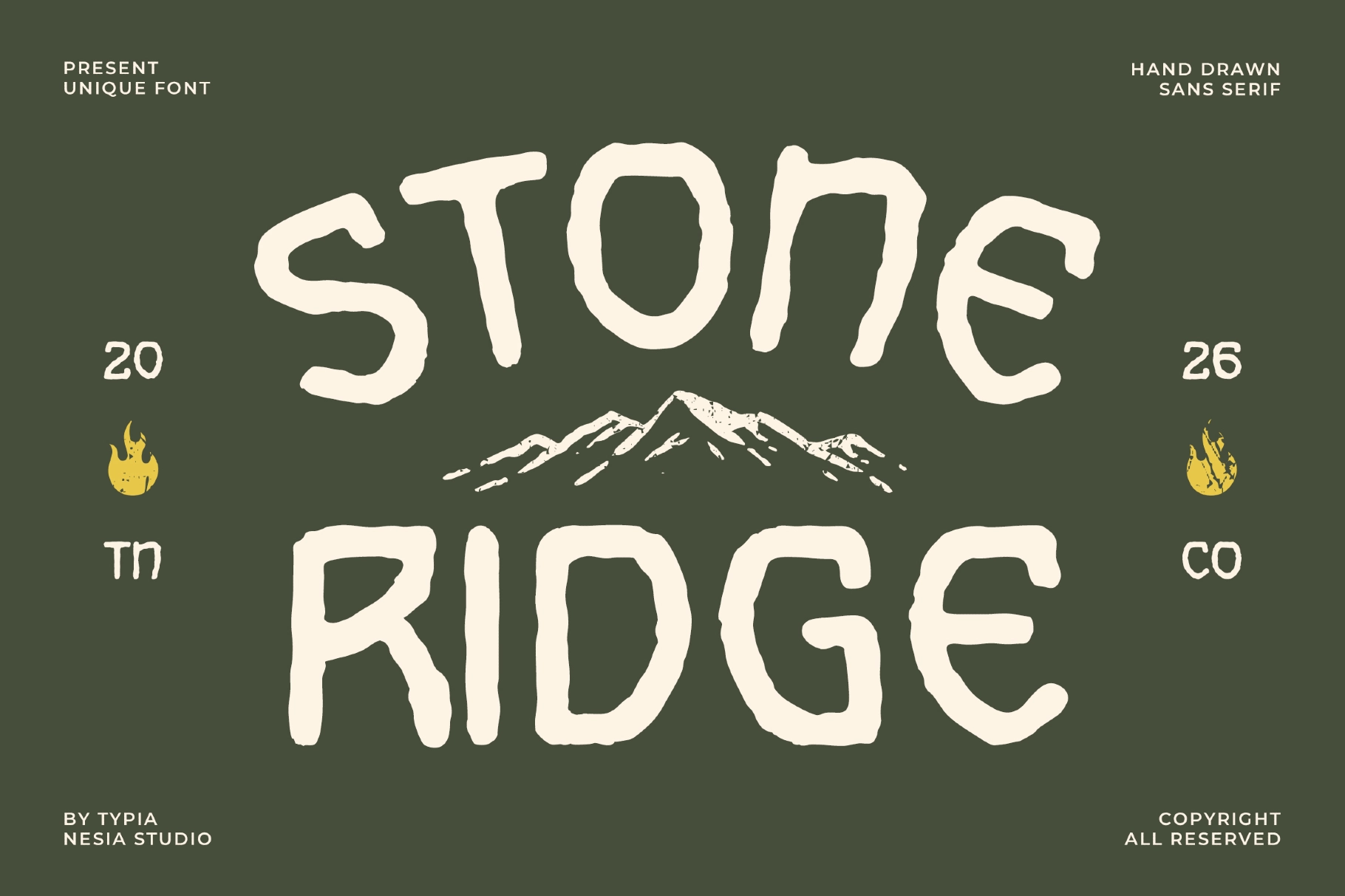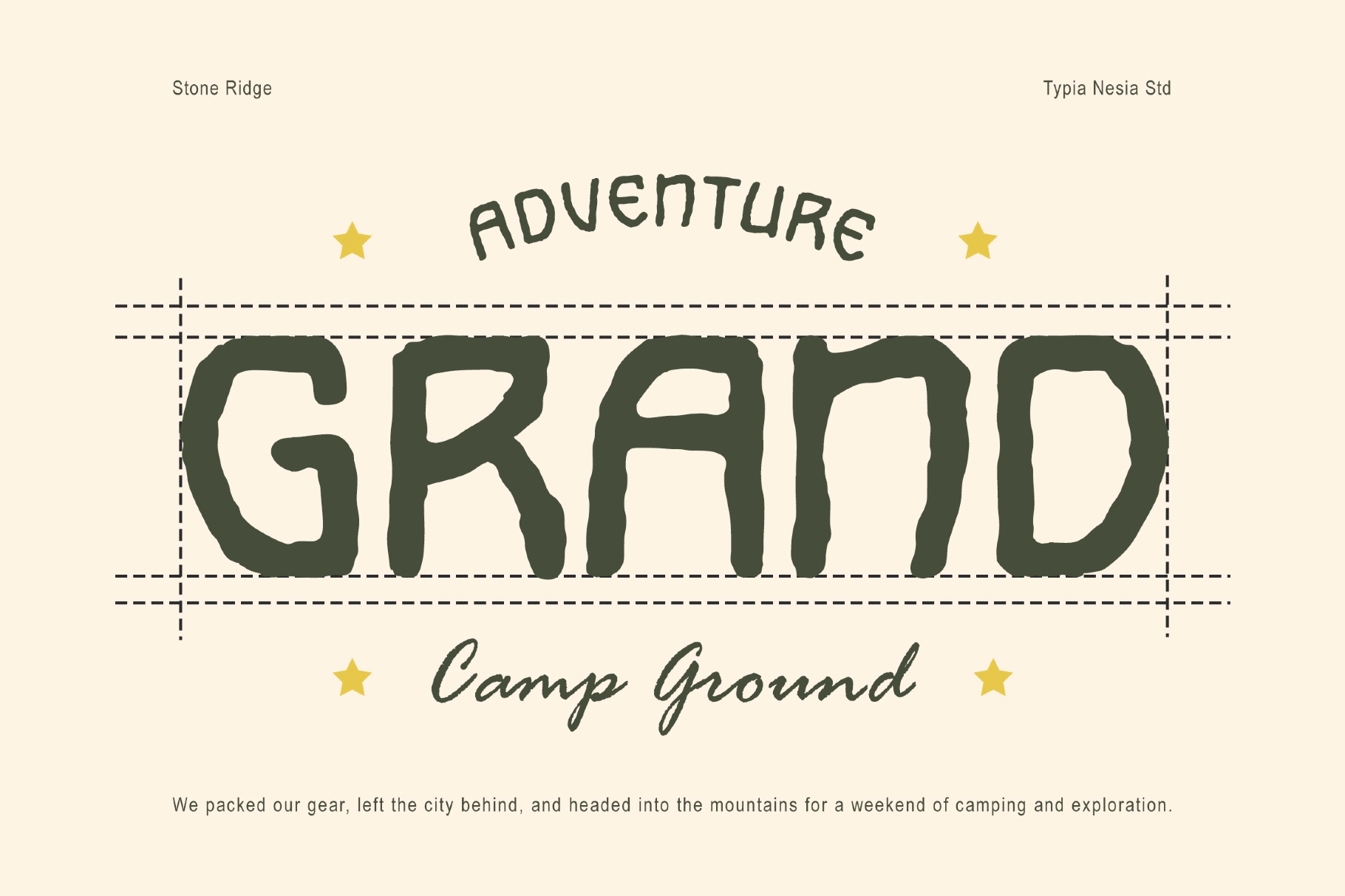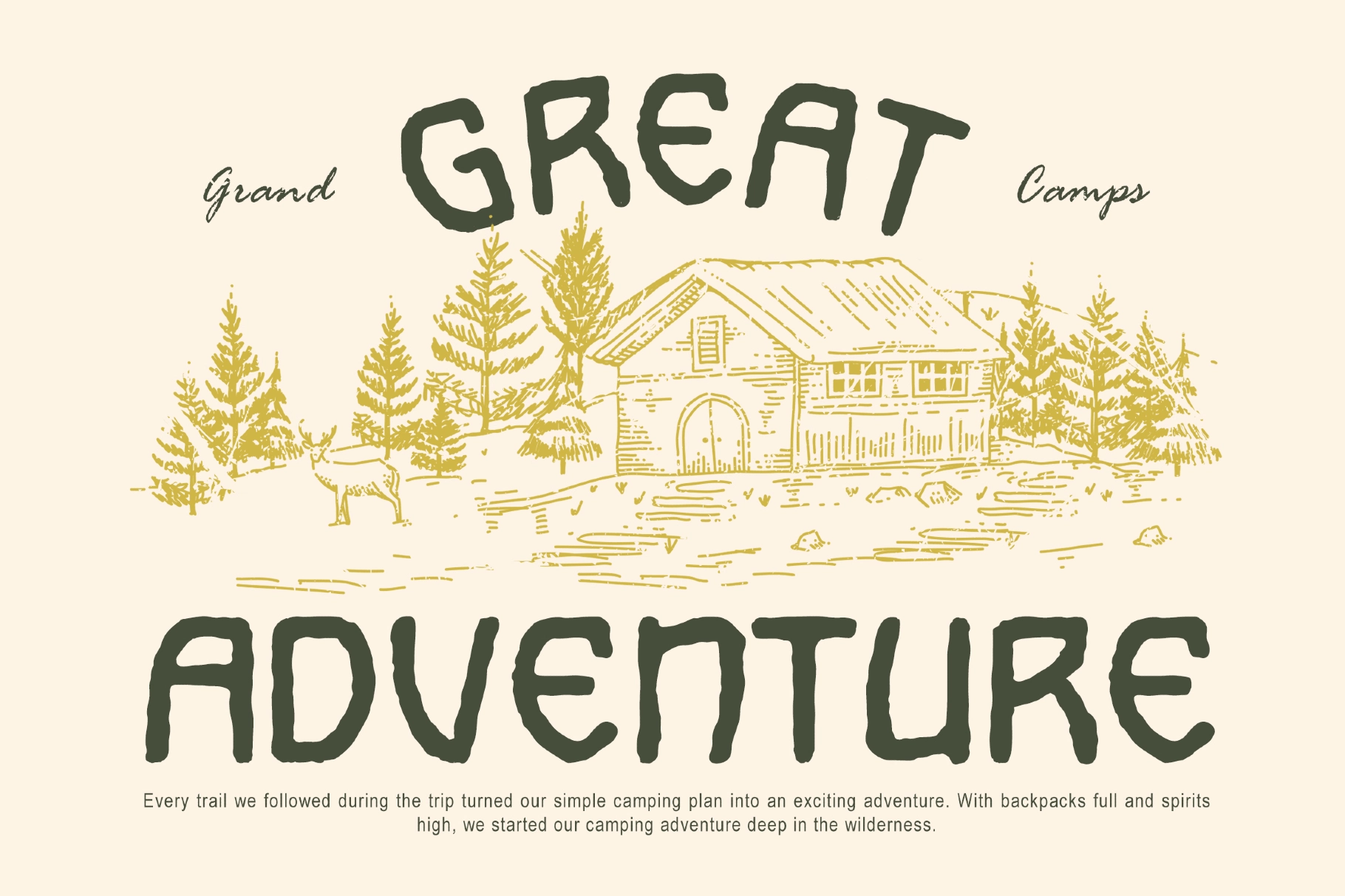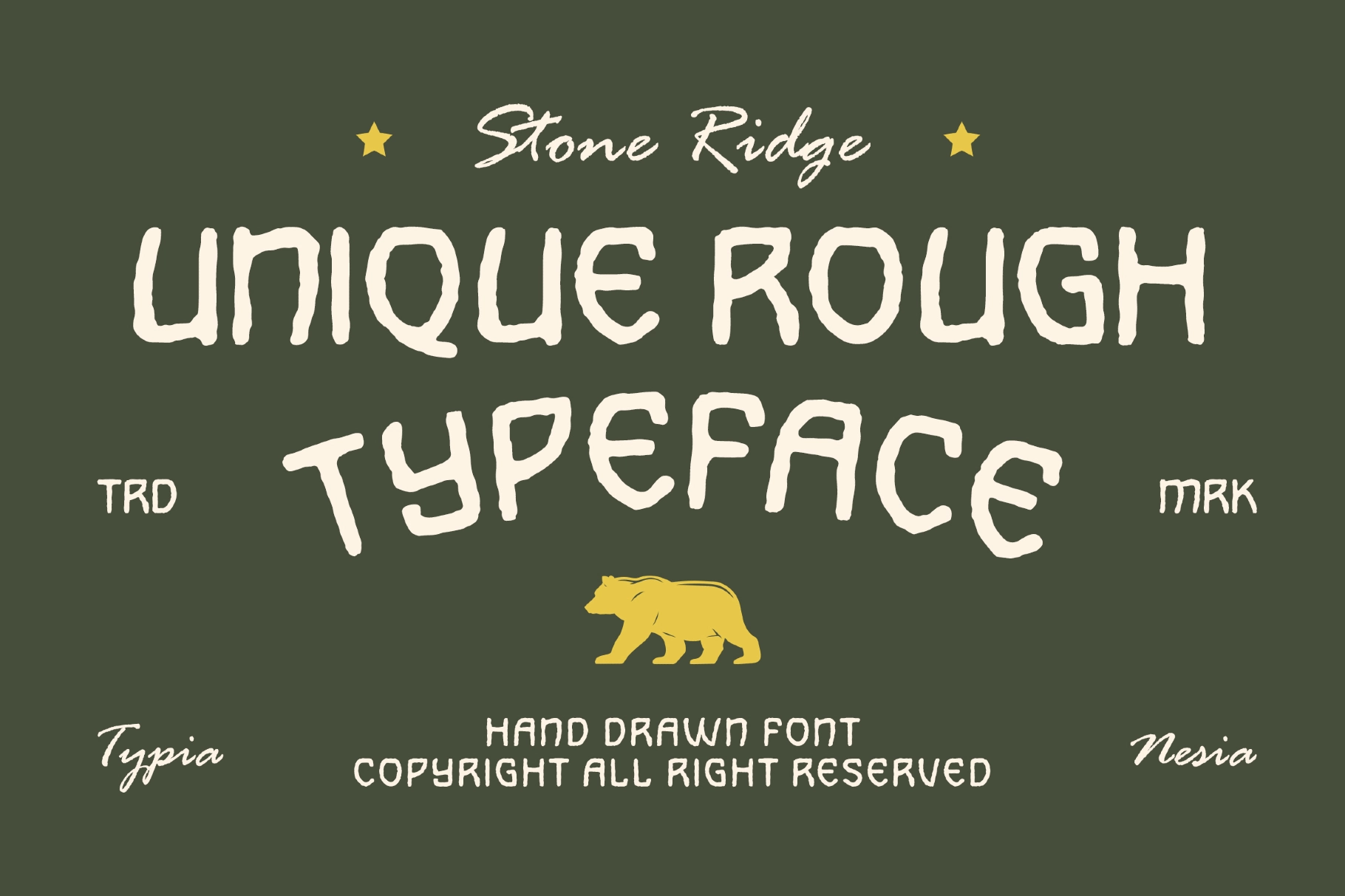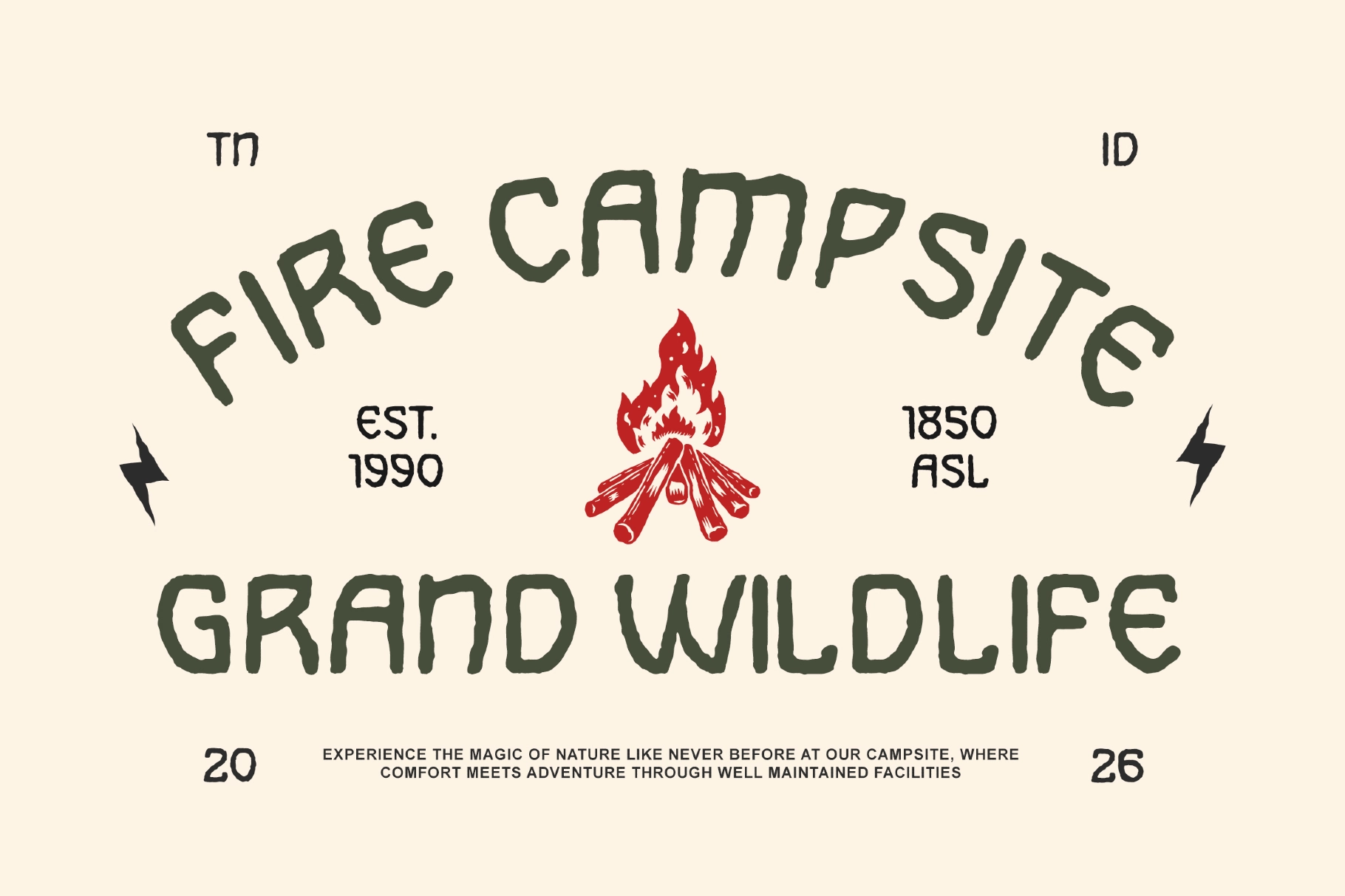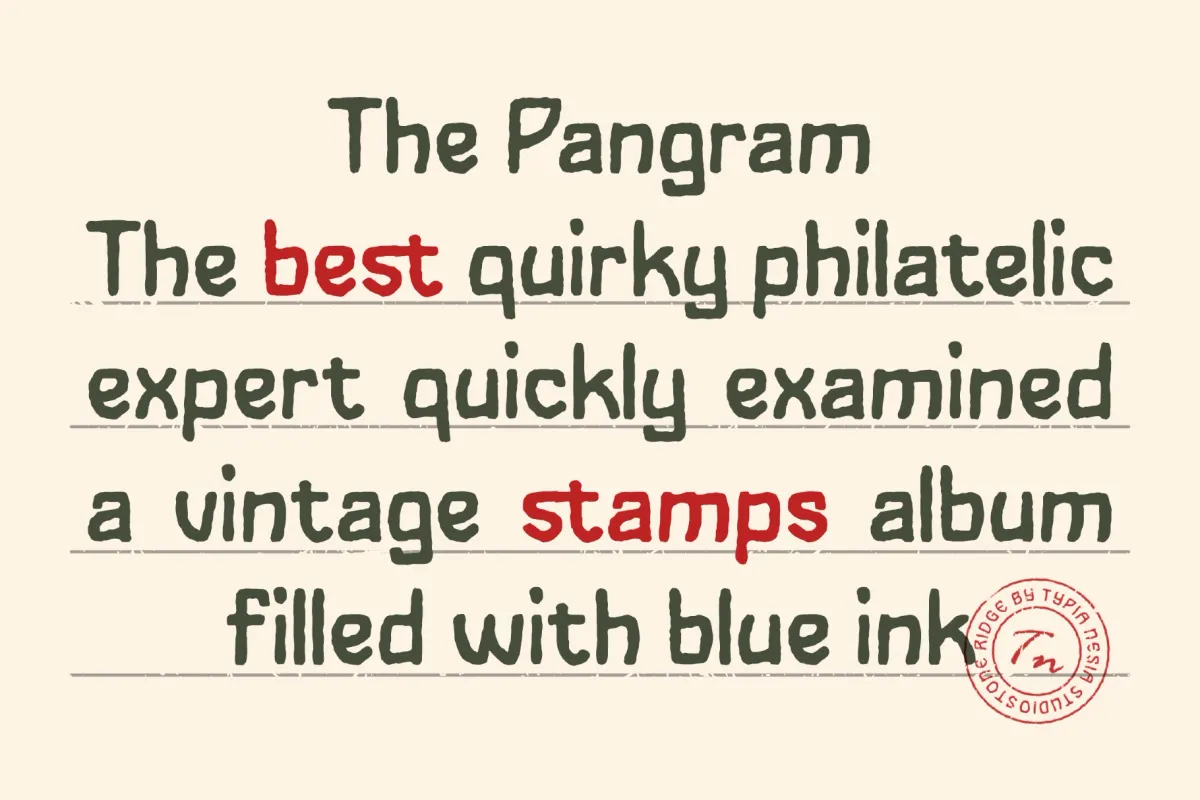
Stone Ridge - Rough Vintage Hand Drawn Font
Stone Ridge
Stone Ridge – Rough Vintage Hand Drawn Font is a rugged display typeface inspired by outdoor adventure culture and vintage wilderness aesthetics. With textured strokes, organic imperfections, and hand-drawn character, it delivers a bold rustic style that feels authentic, natural, and full of personality. The rough shapes and uneven edges create a handcrafted look that instantly evokes mountains, camping gear, and classic outdoor branding.
Perfect for outdoor logos, adventure branding, packaging, posters, badges, and lifestyle graphics, Stone Ridge brings a strong vintage wilderness vibe to projects that need a grounded and adventurous visual identity.
- Ideal for Outdoor Logos & Adventure Branding
- Great for Camping Graphics, Badges & Vintage Packaging